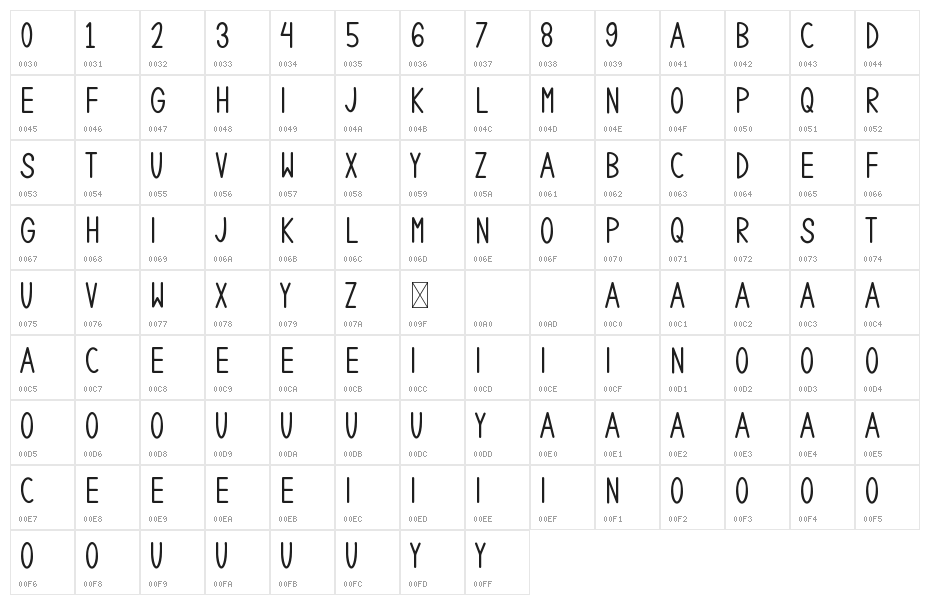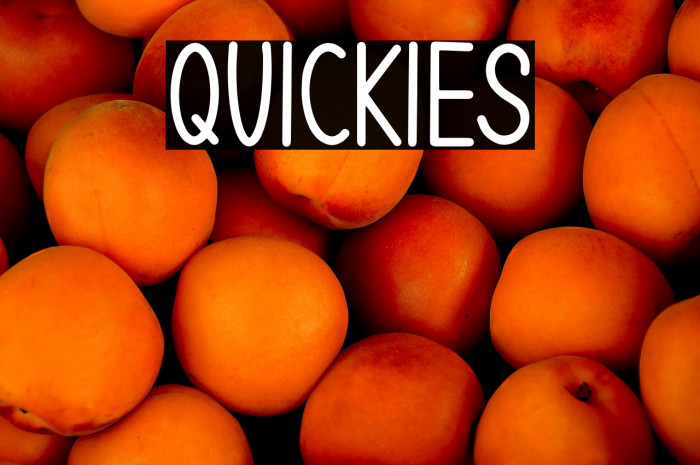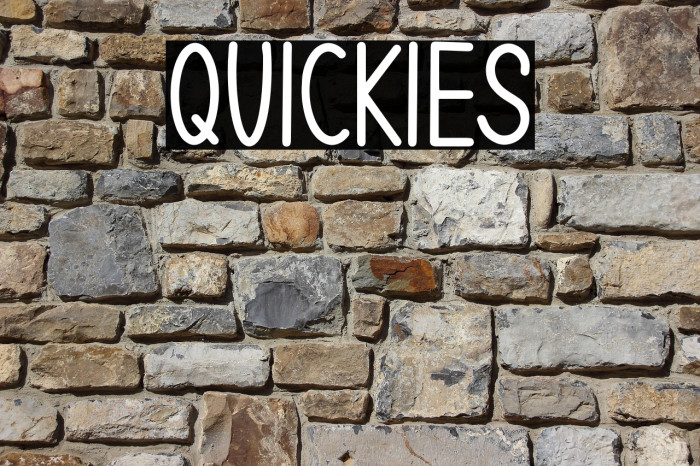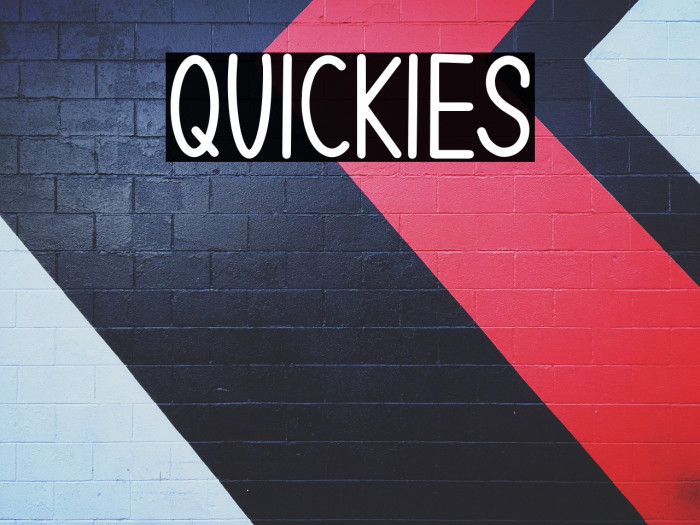
QUICKIES Font
| Caso d'uso | Headlines, Logos, Casual Text |
| Progetti proposti | Ideal for children's books, playful branding, casual invitations, and social media graphics. |